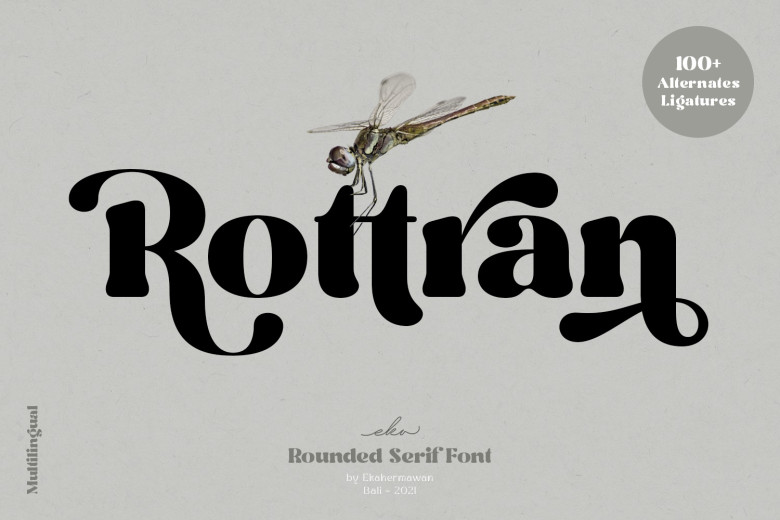
Rottran Font
One is a rounded serif font named Rottran. Including with more than 100+ alternates characters and ligatures characters are PUA-encoded, this will give you a wide range of typographic design results.
It is also very good for logo design, branding, poster, magazines, labels, merchandise, and invitation. This font is perfect for creating a brand.
Rottran Serif Font